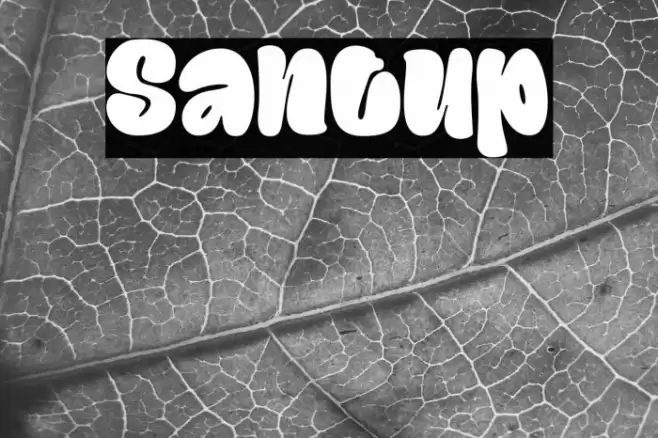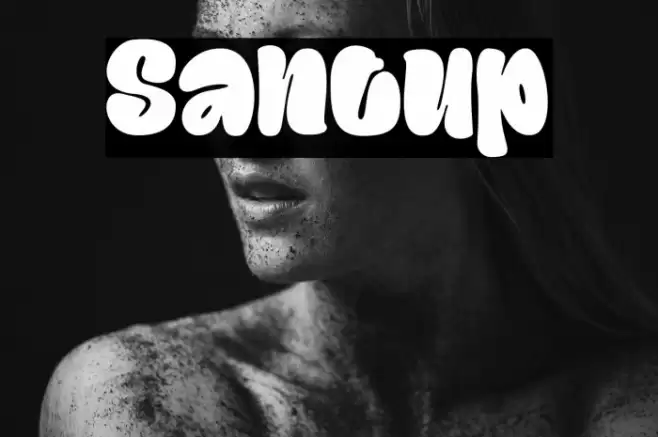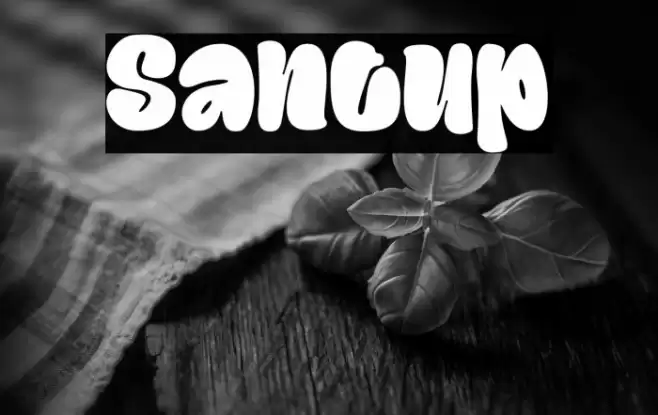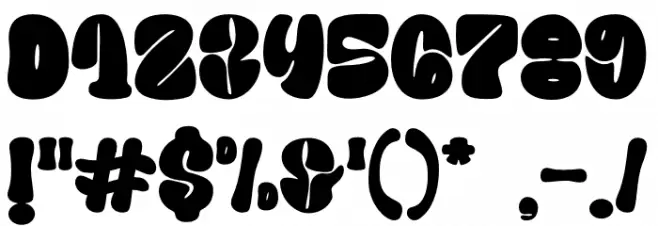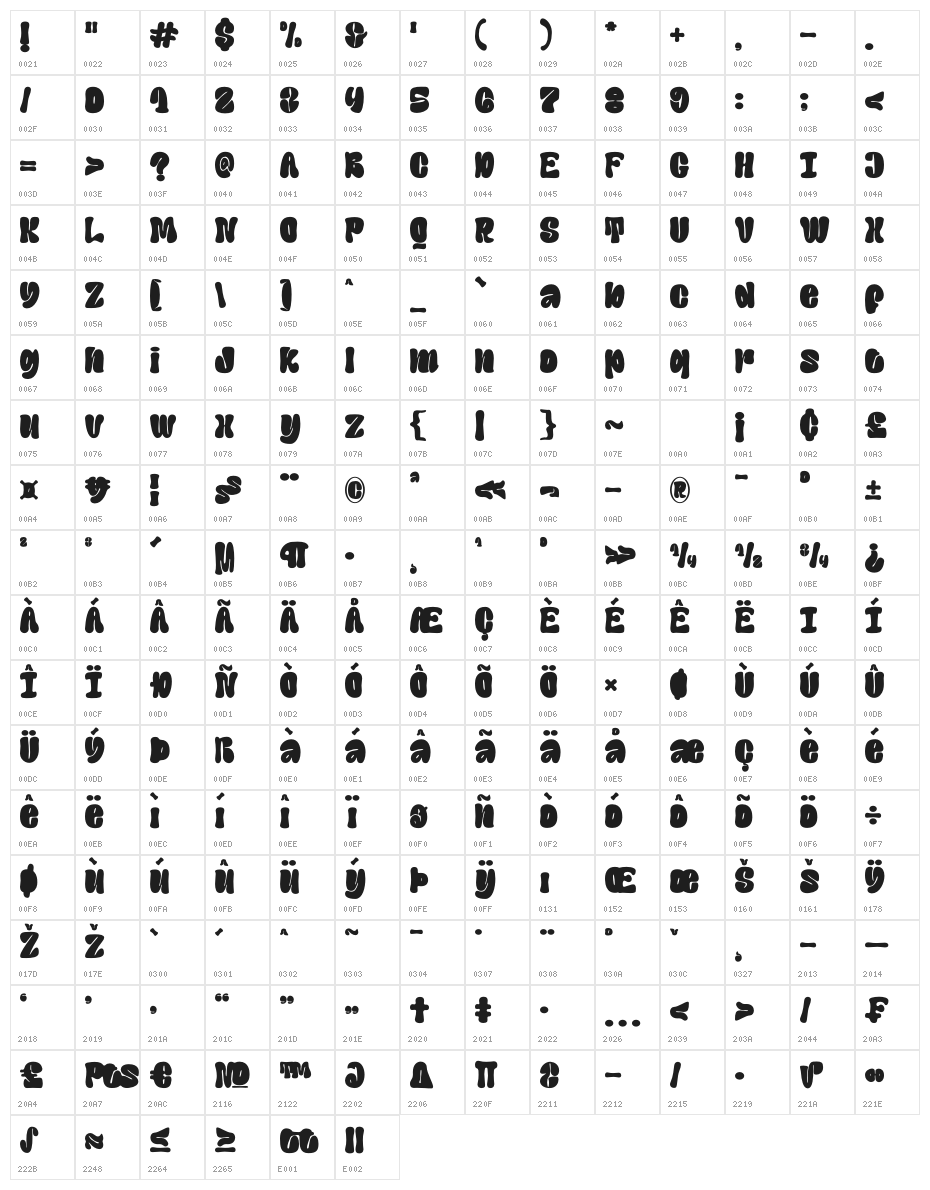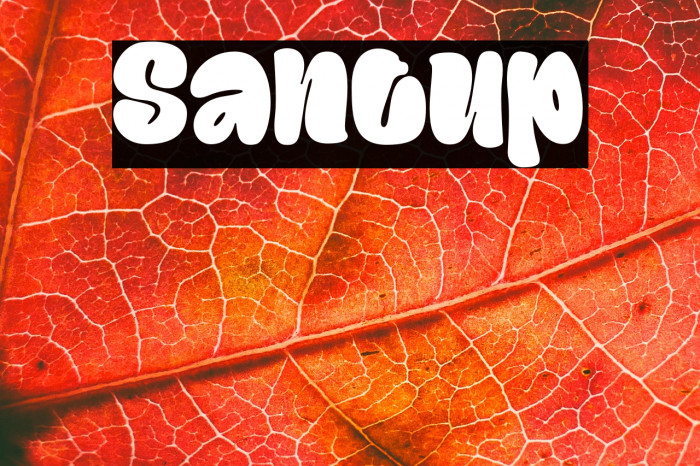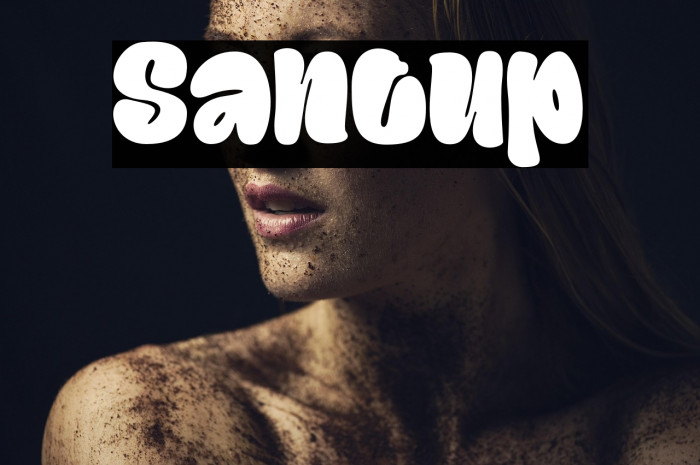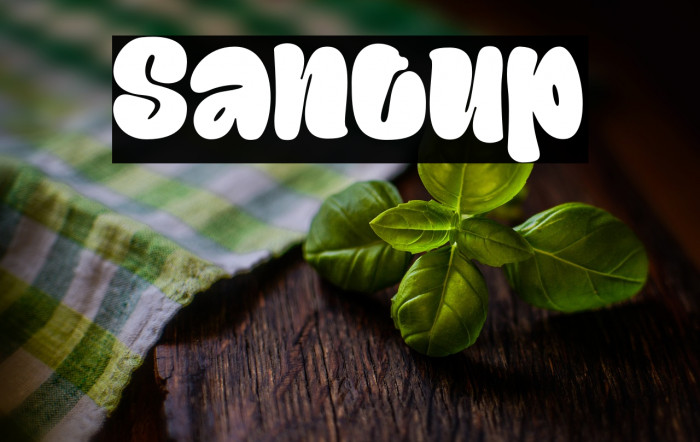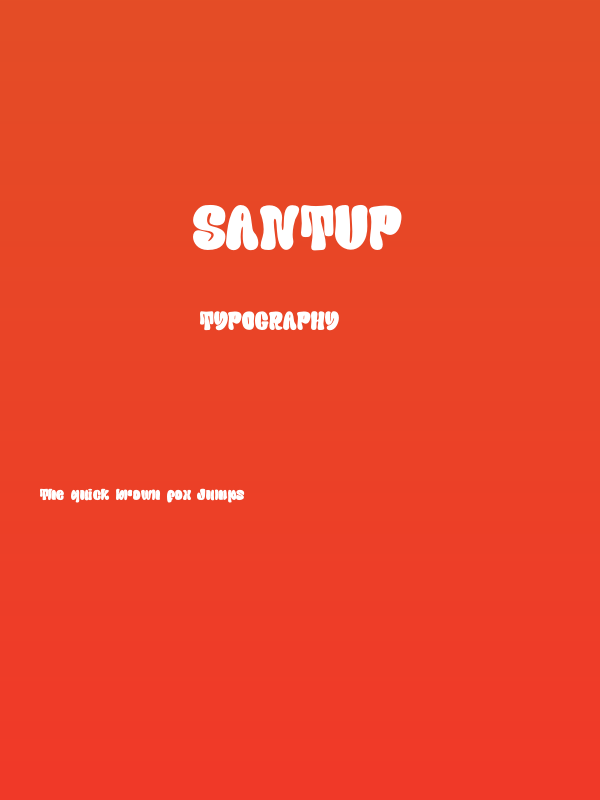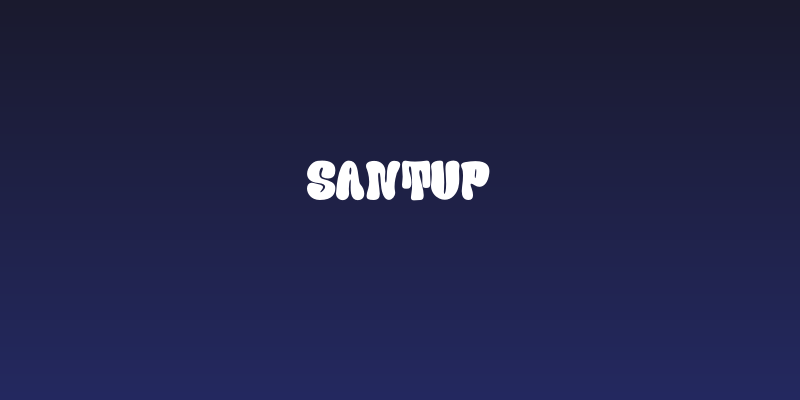
Santup Font
Santup Description
This font features a bold and playful design with thick, rounded characters that give it a bubbly appearance. The letters are heavily weighted, creating a strong visual impact. The style is reminiscent of retro or vintage aesthetics, with a touch of whimsy and fun. The characters are closely spaced, enhancing the compact and cohesive look of the text. The font includes both uppercase and lowercase letters, as well as numbers and a variety of special characters, making it versatile for different uses. Its unique style makes it stand out, perfect for projects that require a bold and eye-catching typeface.
A bold, playful font with thick, rounded characters and a retro vibe from Uncategorized fonts.
- Proposed Projects: Ideal for posters, logos, children's books, and any design needing a fun, retro touch.
- Character Spacing: Tight
- Overall Style: Vintage
- Use Case: Logos, Posters, Headlines